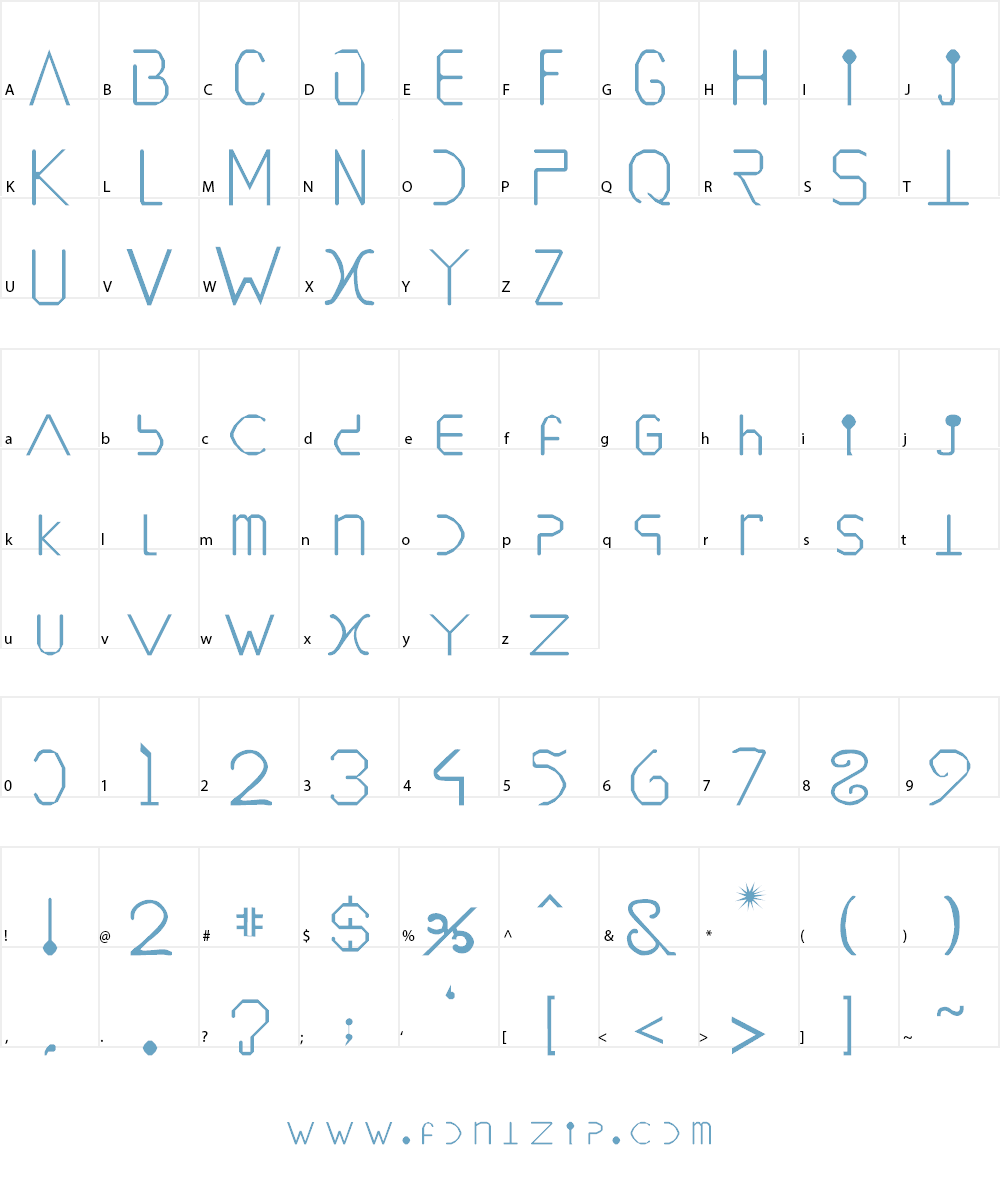
Ever since my first years at primary school, I realized after watching an oscilloscope function, the CRT technique allowed us now to "see" how to behave speech sounds and all the others, sounds that had always been invisible, except to see changes in our mouths, our lips and our tongues.
With the vibration wave form that we then discovered I was put on the track to change the letters or characters to reflect the principles that the oscilloscope reveals about the propagation of sound. And these three principles are simple telling.
1 ° The horizontal line is silent. This means that within our sound environment, since any horizontal line represents the lowest frequency, like land or the ground where we stand, we need to change as much as possible the characters in order to faithfully reflect this principle that the lowest and down line into our writings must include comprising the primary, and as a first example, the letter "t".
Afterwards, we must make an absolute corresponence of this silent down line to all written characters. So we must modify all existing characters that are showing features downward below the normal line of writing.
2° The sounds path never goes back to it's starting point. They are the engines of the time. They are still advancing.
So, characters that involve circles or semicircles must all be unblocked or opened.
3° The distinct sounds of the other ones never shows two curves sounds for a single one, on the oscilloscope. Each distinct sound is a vibration that is only different from the next sound that does not resemble him.
So, characters with separated points or seconded accents must all be changed. All these points and accents must be written as part of the specified character and must be stuck.